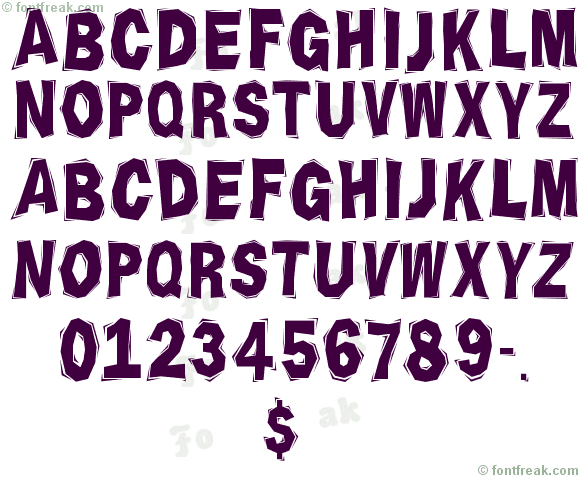
Chiseled
About Chiseled
The Chiseled font by Manfred Klein is a striking display font that captures attention with its unique aesthetic. As a decorative typeface, it features bold, angular strokes that evoke a sense of strength and stability. The font has a distinct chiseled appearance, with rugged edges and a slightly distressed texture that gives it a handcrafted feel. The overall design showcases a medium stroke weight, providing a balanced contrast that enhances legibility while maintaining its artistic flair. The spacing is well-considered, allowing the letters to breathe without compromising the visual impact.
This font is ideal for a variety of creative applications. Its robust character makes it perfect for movie posters, where a dramatic effect is desired. Additionally, Chiseled works wonderfully on restaurant menus, adding a touch of personality that complements the dining experience. It can also be effectively used in branding materials for small businesses looking to convey a sense of authenticity and craftsmanship. Content creators will find it particularly useful for social media graphics or promotional materials, where eye-catching typography is key to engaging audiences.
The target audience for the Chiseled font includes graphic designers, small business owners, and content creators who are seeking distinctive typography to elevate their projects. Its freeware license allows for easy access, making it an attractive option for those on a budget.
What sets the Chiseled font apart is its ability to blend artistic expression with functional design. Its strong visual presence and versatile applications make it a standout choice for anyone looking to make a memorable impression. For those interested, the Chiseled font free download is readily available, allowing users to incorporate this unique typeface into their work without any cost.